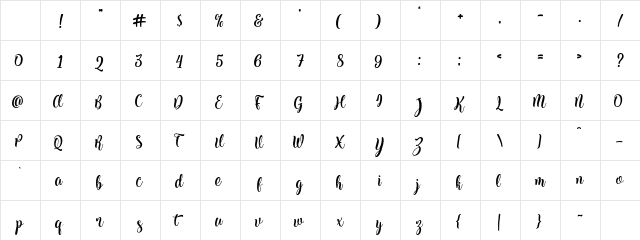
Kite Script flows with the natural rhythm of handwritten lettering, making it ideal for designs that call for warmth and personal expression.
Font Pairing: Combine Kite Script with a simple geometric sans for maximum contrast - the tension between flowing curves and clean structure is a classic typographic pairing.
Pro Tip: Use Kite Script for short runs of text - names, titles, or taglines. Extended body copy in script faces tires the eye quickly.